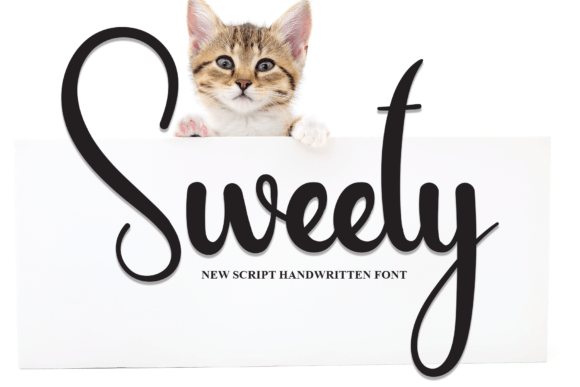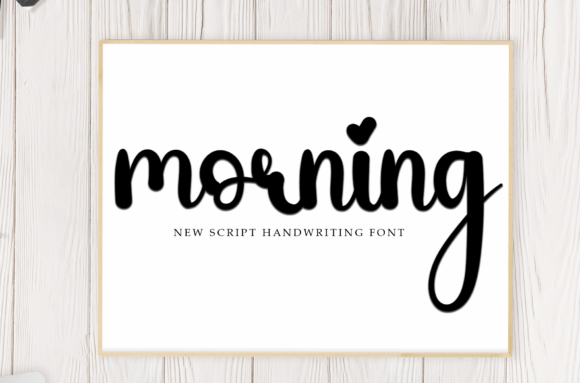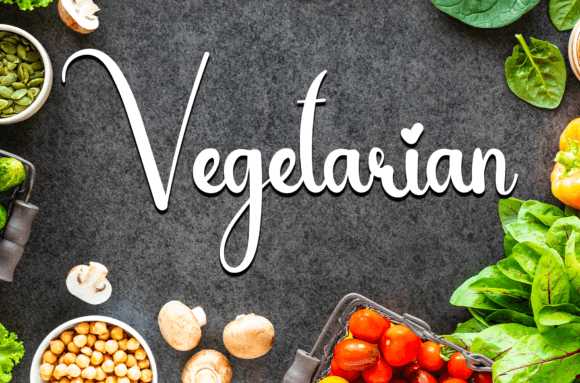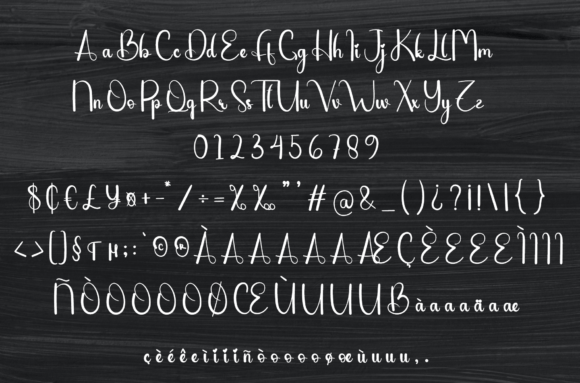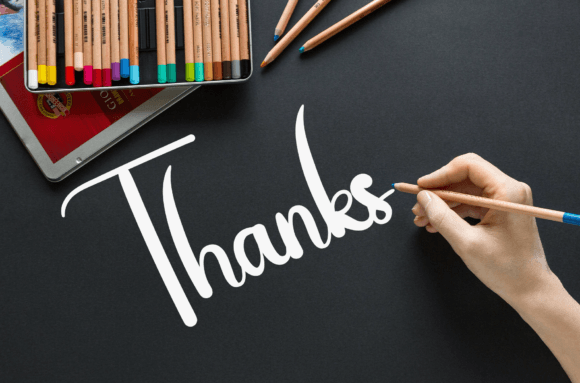
Sweety Font
About Sweety Font
Sweety font is a warm and friendly handwritten typeface, designed to quickly become a favorite in your font collection. Its inviting style brings a natural, handcrafted feel to your designs, making it ideal for a wide variety of creative projects. Whether you’re working on invitations, branding, social media posts, or personal crafts, Sweety font adds a lovely touch of personality that truly makes your projects stand out.
Warm and Approachable Handwriting Style
The appeal of Sweety font lies in its smooth, flowing strokes and easy-to-read letterforms. This font balances playful charm with clear readability, allowing your messages to connect effectively with your audience. Its style is both contemporary and timeless, which helps it fit a broad range of creative uses.
Versatile Uses for Sweety Font
Sweety font is perfect for numerous design applications, including:
• Wedding invitations and greeting cards
• Brand logos and identity materials
• Social media graphics and promotional content
• Personal notes and handwritten lettering
• Posters, flyers, and print designs
Its friendly and adaptable style ensures that Sweety fon works well in both print and digital environments.
Adding Personality and Warmth
Using Sweety fon brings warmth and character to your designs. Its handwritten look fosters a personal connection with viewers, making your content feel genuine and heartfelt. This font enhances creativity by offering a charming, approachable vibe that makes every project feel special.
Why Choose Sweety Fon?
• Friendly and clear handwritten style
• Smooth, readable letterforms
• Suitable for a wide variety of projects
• Adds warmth and personal charm
• Ideal for both digital and print use
Final Thoughts on Sweety Font
In summary, Sweety fon is a friendly and charming handwritten typeface that suits wedding invitations, branding, social media, and more. Its warm, lively style makes it a valuable tool for designers who want to add personality and elegance to their projects.